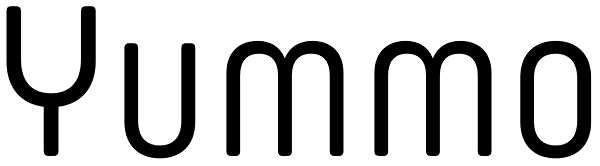
Yummo
Yummo is a geometric and somewhat condensed sans serif type family that can be used in a wide range of applications. The minimal glyphs that have been shaped superbly will give modern and contemporary impressions. At the same time, the rounded shape...